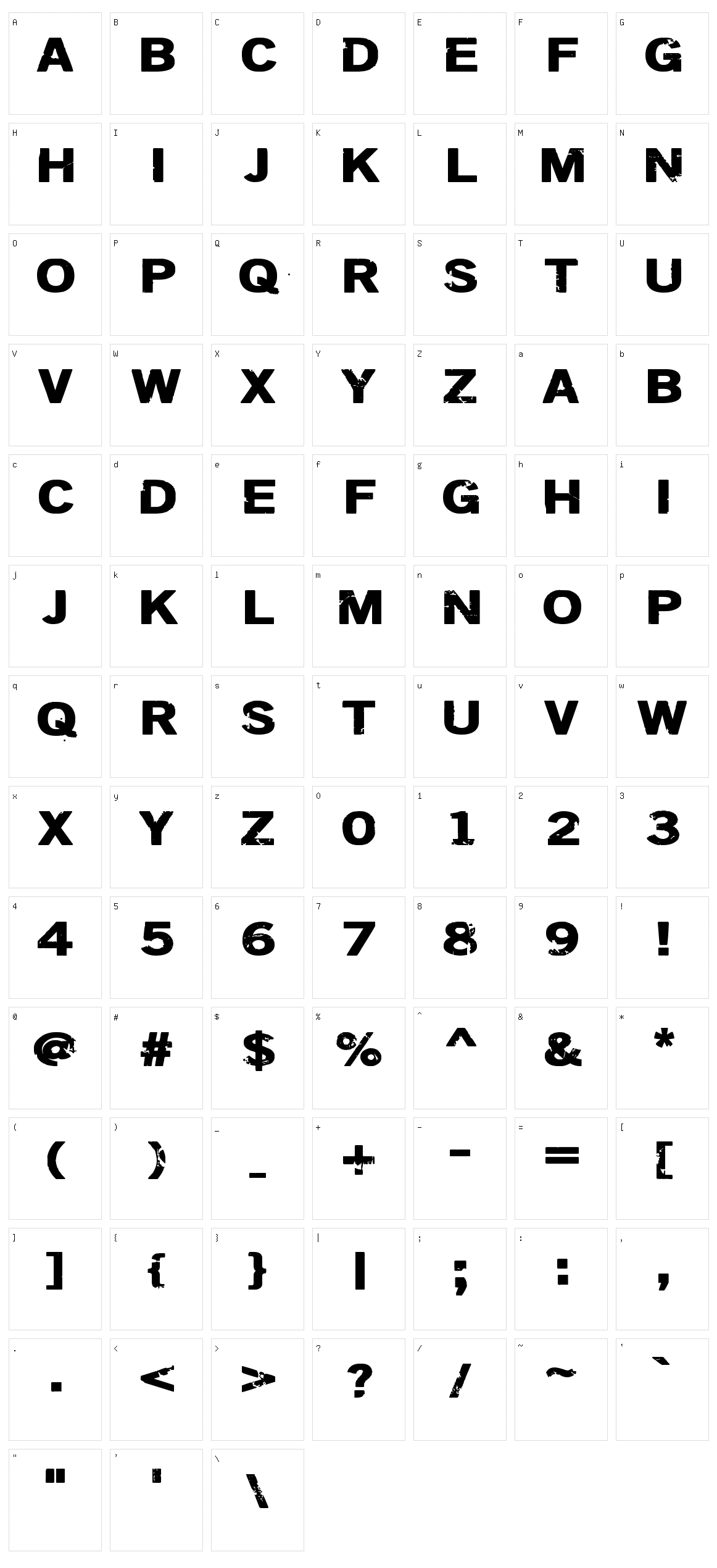
The free font Dsiodrer is carefully designed by junkohanhero, showcasing a thoughtful balance of creativity and usability and falls under the Eroded font style. When you download the ZIP file, it contains only 58.65 KB of font files, making it lightweight and quick to download. Please review the license details below to understand permitted usage and distribution rights. If license information is not available, we recommend using this font for personal projects only or contacting the author directly for commercial usage permissions.